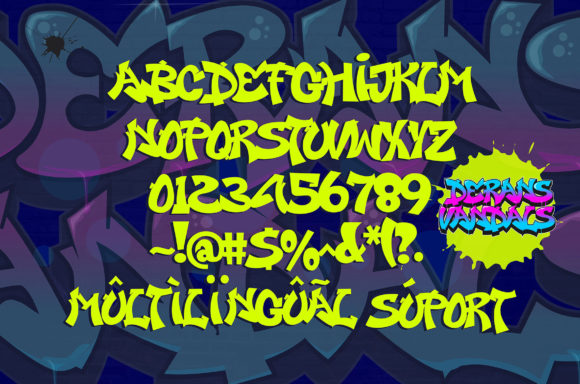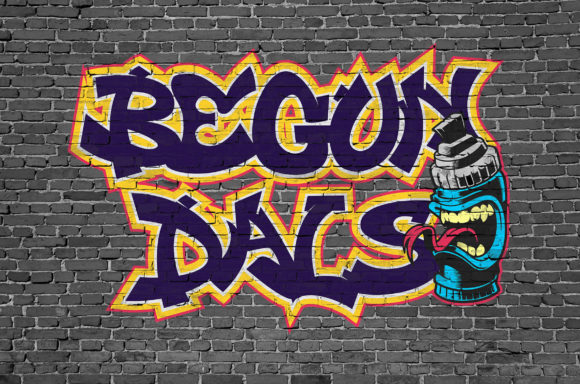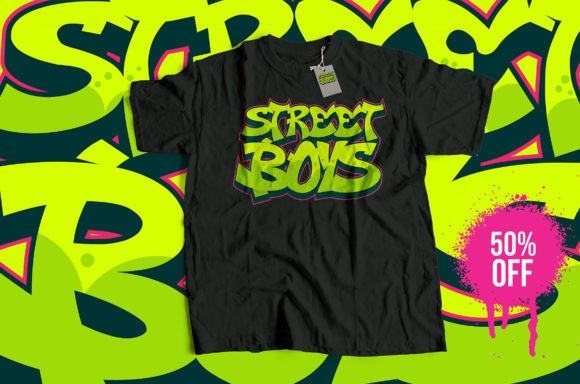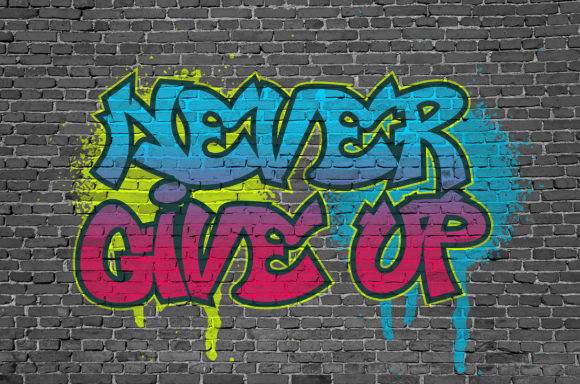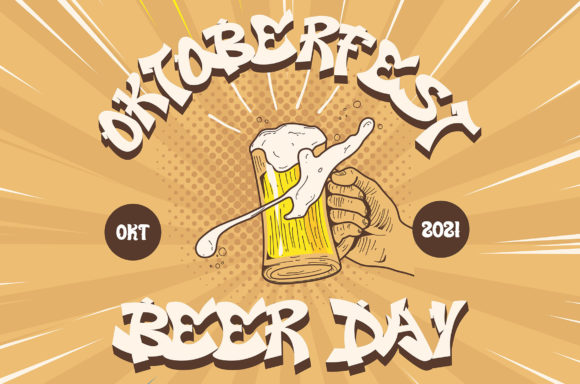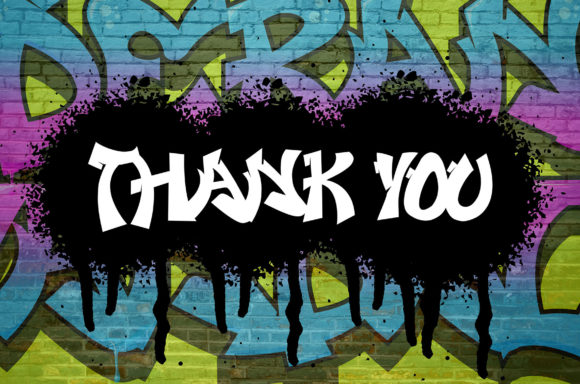
Introduction to Derans Vandals Font
You’ve stared at a blank canvas, waiting for inspiration to strike, and then it happens – a burst of creativity that sets your imagination ablaze. For designers, moments like these are the spark that ignites a new project, and the right design resource can make all the difference. One such resource is the Derans Vandals Font, a high-quality, graffiti-styled display font that’s sure to add a street art vibe to your creative project.
Perfect for designs ranging from t-shirts and sportswear to logos, advertisements, and clothing, the Derans Vandals Font is a versatile tool that can elevate your designs to the next level. With its bold, edgy look, this font is perfect for designers who want to make a statement and stand out from the crowd.
Key Features of Derans Vandals Font
- High-quality design resource ideal for creative projects, with a unique, bold aesthetic.
- Derans Vandals Font comes with a transparent background, allowing for seamless integration into various design elements.
- Font size: scalable, with a recommended minimum size of 12 points for optimal readability.
- Resolution: 300 DPI, suitable for both screen and print-based design applications.
- Unique characteristics include its bold, graffiti-inspired design and extensive character set, making it perfect for urban-themed projects.
Honest Review: Derans Vandals Font
I recently came across the Derans Vandals Font and was excited to give it a try in my next creative project. This font is a fantastic design resource for anyone looking to add a unique touch to their work.
- What works well: ✨ The font has a high-quality feel to it, with crisp lines and a clear, readable design. The transparent background makes it easy to layer over other design elements.
- What works well: ✨ The font is perfect for creating eye-catching headlines and titles. Its bold, graffiti-inspired design is sure to grab attention and add a touch of edginess to your project.
However, I did encounter a few limitations when using the font.
- Limitations: ⚠️ The font can be a bit tricky to use in smaller text sizes, as the bold lines can become difficult to read.
Overall, I was impressed with the Derans Vandals Font and would definitely recommend it for any creative project. Its high-quality design and unique style make it a great addition to any design resource library.
The Derans Vandals Font is a versatile design resource that can be used in a variety of creative projects, including:
Tips for Getting the Most Out of Derans Vandals Font
For the best results, use the Derans Vandals Font on a transparent background to create a clean and modern look. You can also experiment with different font sizes, colors, and styles to add visual interest to your design project. With this high-quality font, the possibilities are endless!
Alternatives to Derans Vandals Font
Comparison to Derans Vandals Font: While both fonts have a playful feel, Great Vibes Font is more elegant and sophisticated. It’s a better choice for projects that require a high level of sophistication and refinement.
Does the Derans Vandals Font have a transparent background?
Yes, the Derans Vandals Font has a transparent background, making it ideal for use on dark or busy backgrounds. This feature allows the font to stand out and add a touch of elegance to your design. You can also use the font’s transparency to create unique and creative effects in your design project.